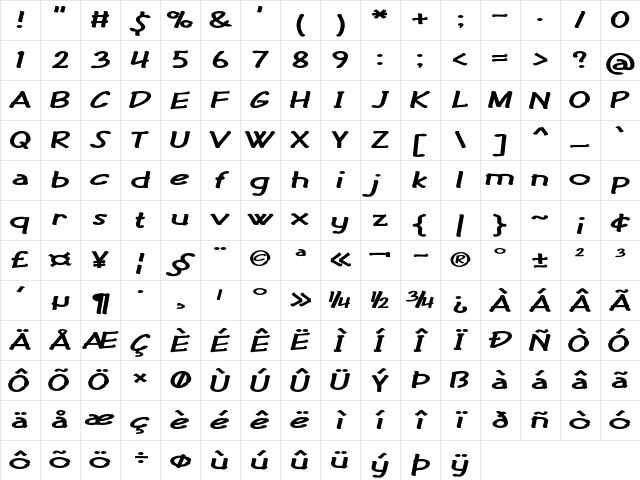
Toolie Pie Expanded Bold Free Font
Toolie Pie Expanded Bold
Toolie Pie Family
Complete Toolie Pie Expanded Bold glyph index. Displaying only characters natively supported by Toolie Pie Expanded Bold font.
Design Context for Toolie Pie
Toolie Pie is a composed and adaptable typeface that performs quietly and consistently across a wide range of design contexts. Its bold stroke weight gives it real presence on the page.